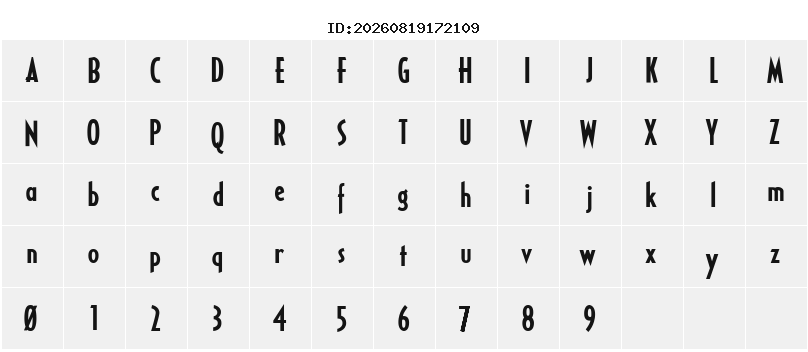
SiMaxis Preview
• Font Name: SiMaxis
• Font ID: SiMaxis Regular
• Full Font Name: SiMaxis Regular
• Version: Version 1.200 2003
• PostScript Name: SiMaxis
• Designer: Filthy Monkey
• Manufacturer: Filthy Monkey
About SiMaxis.ttf
SiMaxis.ttf is a modern, elegant sans-serif font designed for ultimate readability and visual harmony. Perfect for branding, headlines, web design, and print materials.